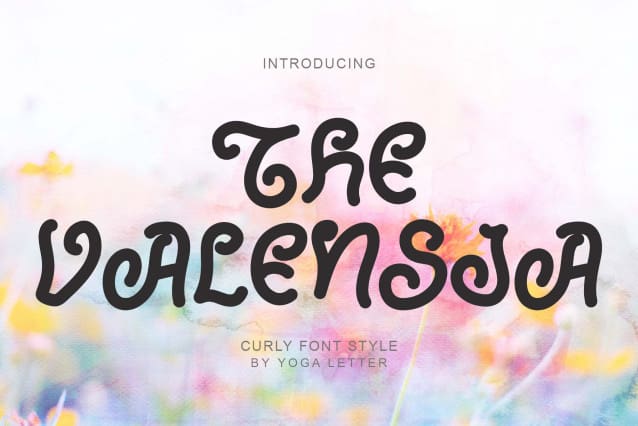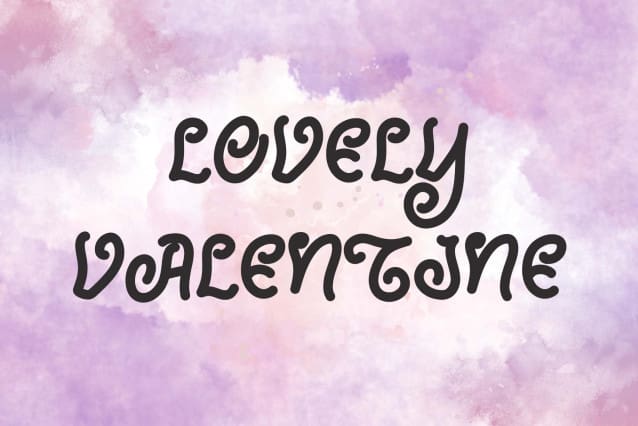
The Valensia Font
The Valensia Font is a curly display font that enchants with its intricate and whimsical letterforms. Each character exudes an ornate elegance, capturing the essence of decorative curls. Ideal for projects seeking a playful and decorative touch, The Valensia adds a charming and intricate flair to your creative expressions.